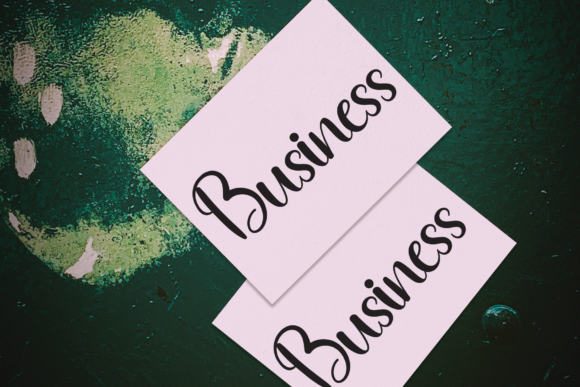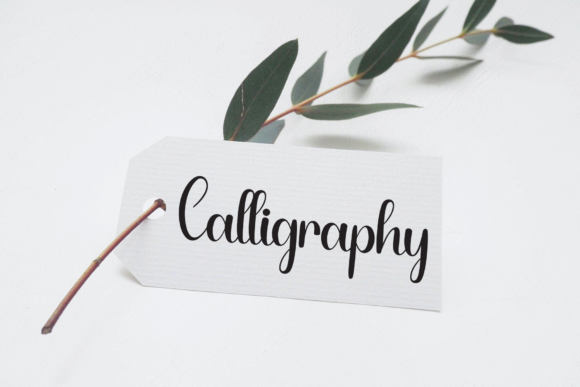
Amsterdam Font
db-ku.com - Script & Handwritten -- This is a sweet, romantic, and beautiful script font. It features stunning curves in each letter. This font is PUA encoded, which means you can access all the glyphs and sweeps easily!